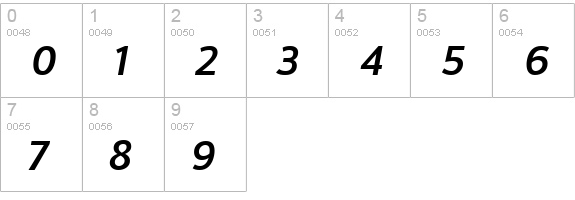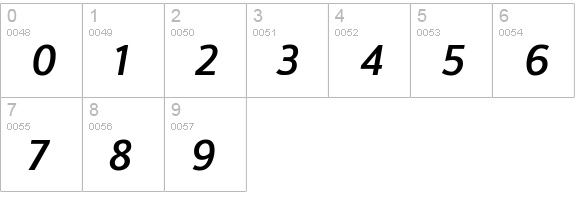
Doradani Sb Italic is a distinctive, italic variant in the Doradani typeface family \xE2\x80\x94 well suited to design and typography projects.
Doradani Sb Italic is a modern and elegant font that exudes sophistication and style. With its sleek design and distinct italicized characters, this font is perfect for adding a touch of class to any project. The smooth curves and graceful strokes of Doradani Sb Italic make it ideal for use in branding, advertising, and editorial design. What makes Doradani Sb Italic even more appealing is that it is completely free to download at FontsMarket.com. This means that you can easily access this beautiful font without any cost, making it a valuable addition to your typography collection. Whether you're a designer looking to elevate your creations or someone seeking a stylish font for personal use, Doradani Sb Italic is a versatile choice that will surely impress. Download it today and enhance your projects with this exquisite typeface.